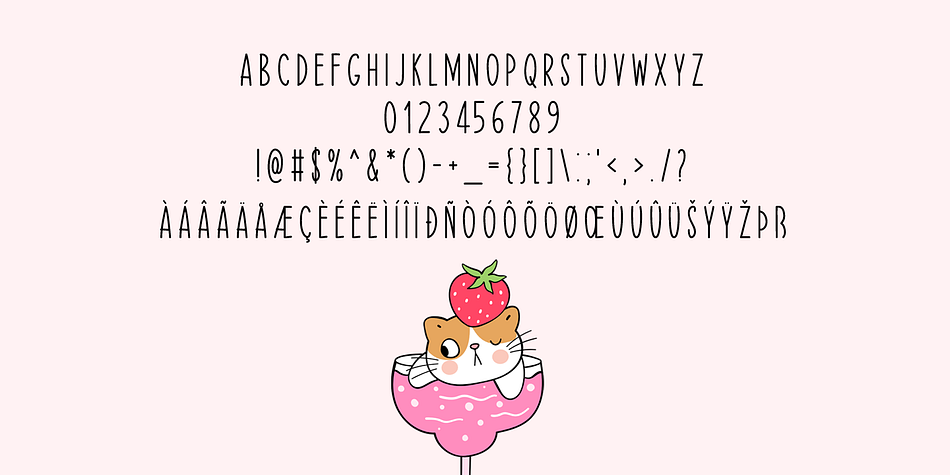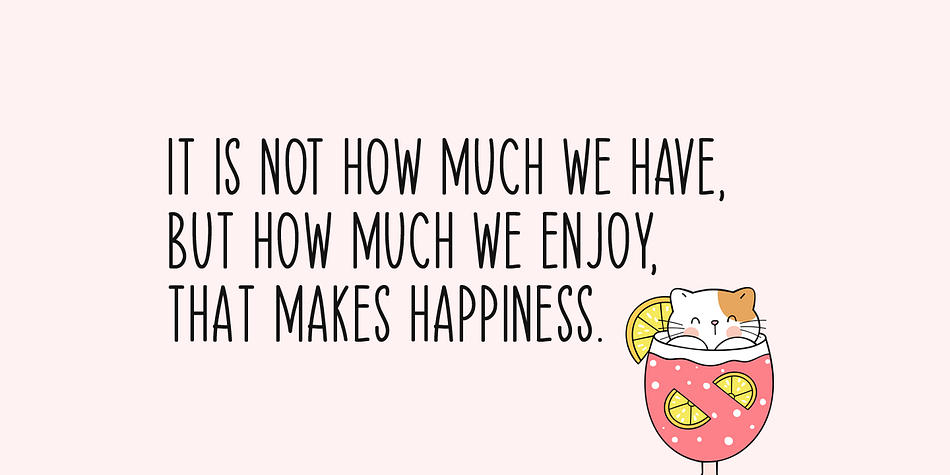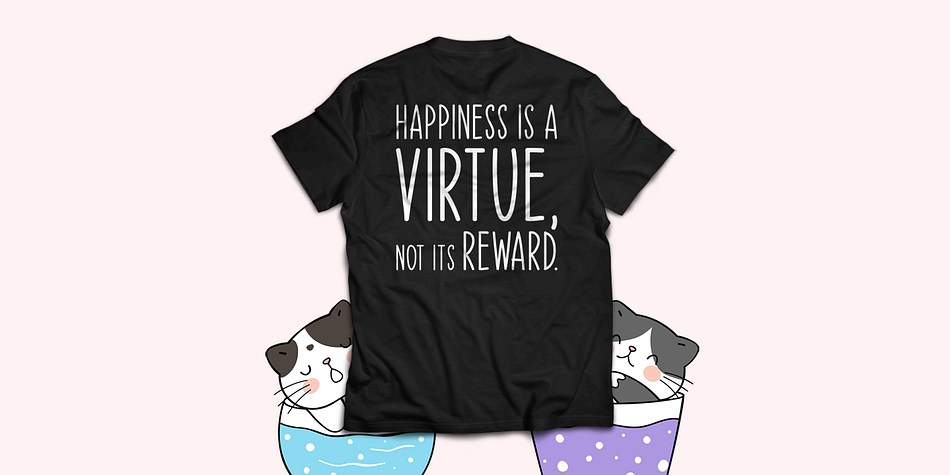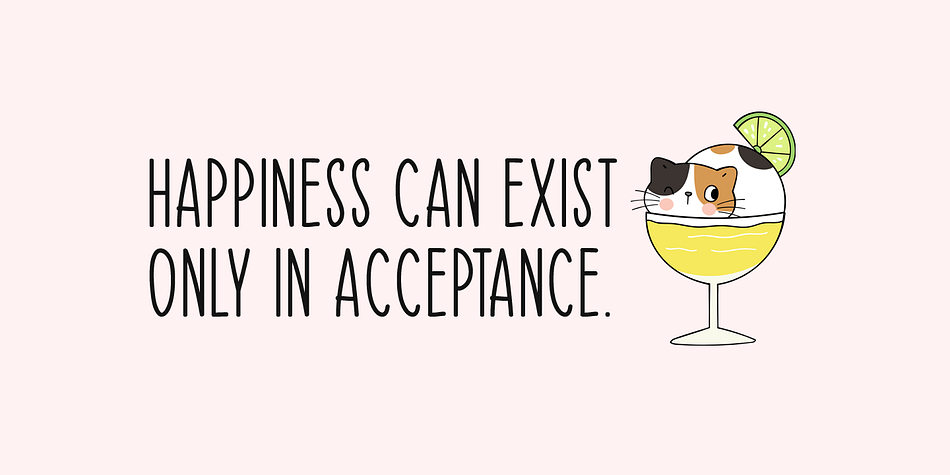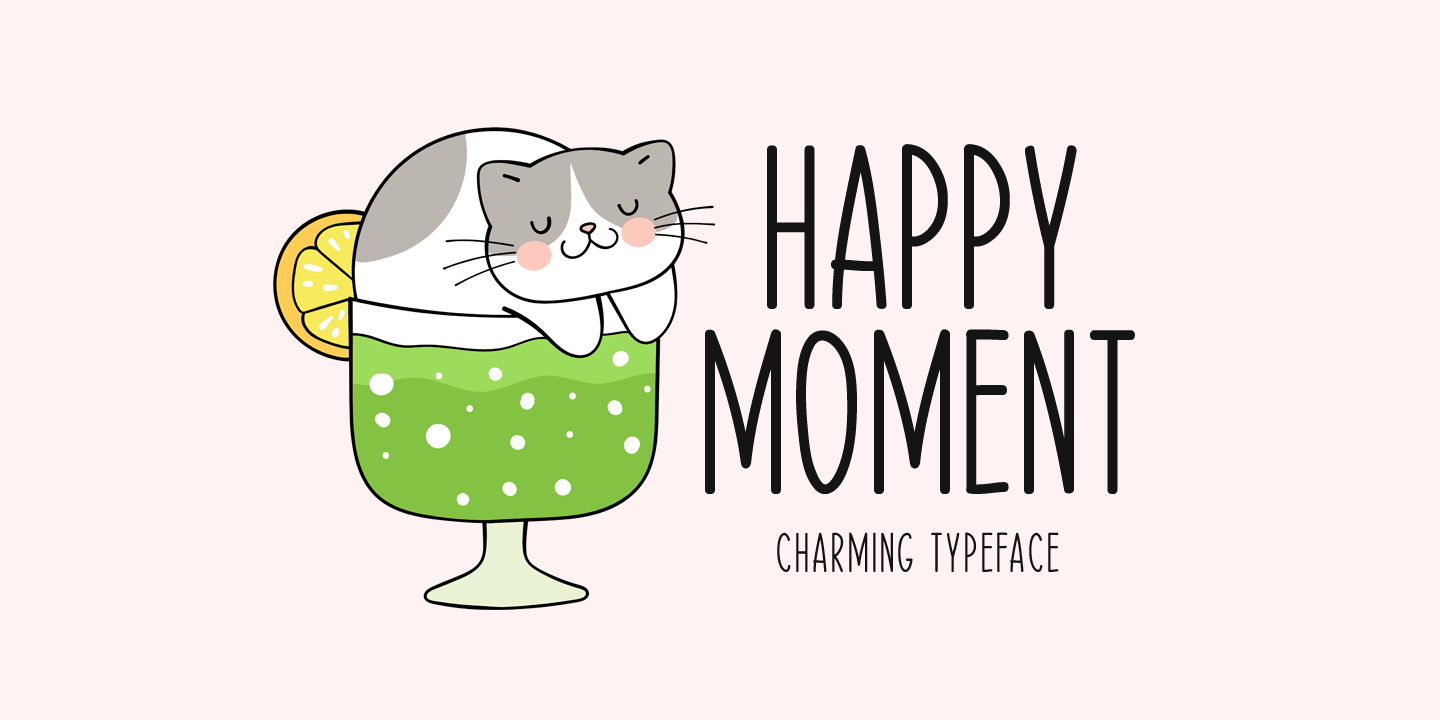
HAPPY MOMENT
Designed by Md. Shohail Bhuiyan, Happy Moment is a hand display and hand drawn font published by Seemly Fonts.
Happy Moment is a cute and tall lettered handwritten font that can be used for all chalkboard quotes or teaching material! Its authentic look and feel will add a realistic feel to your designs.